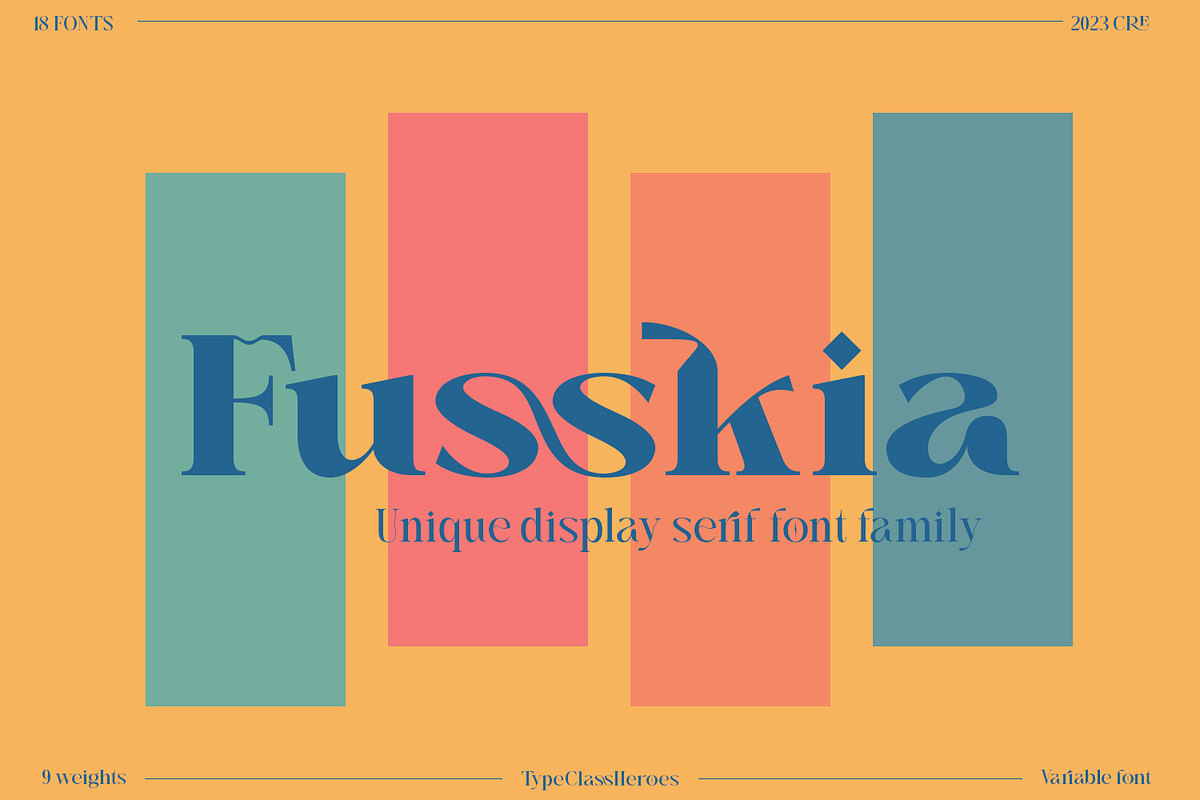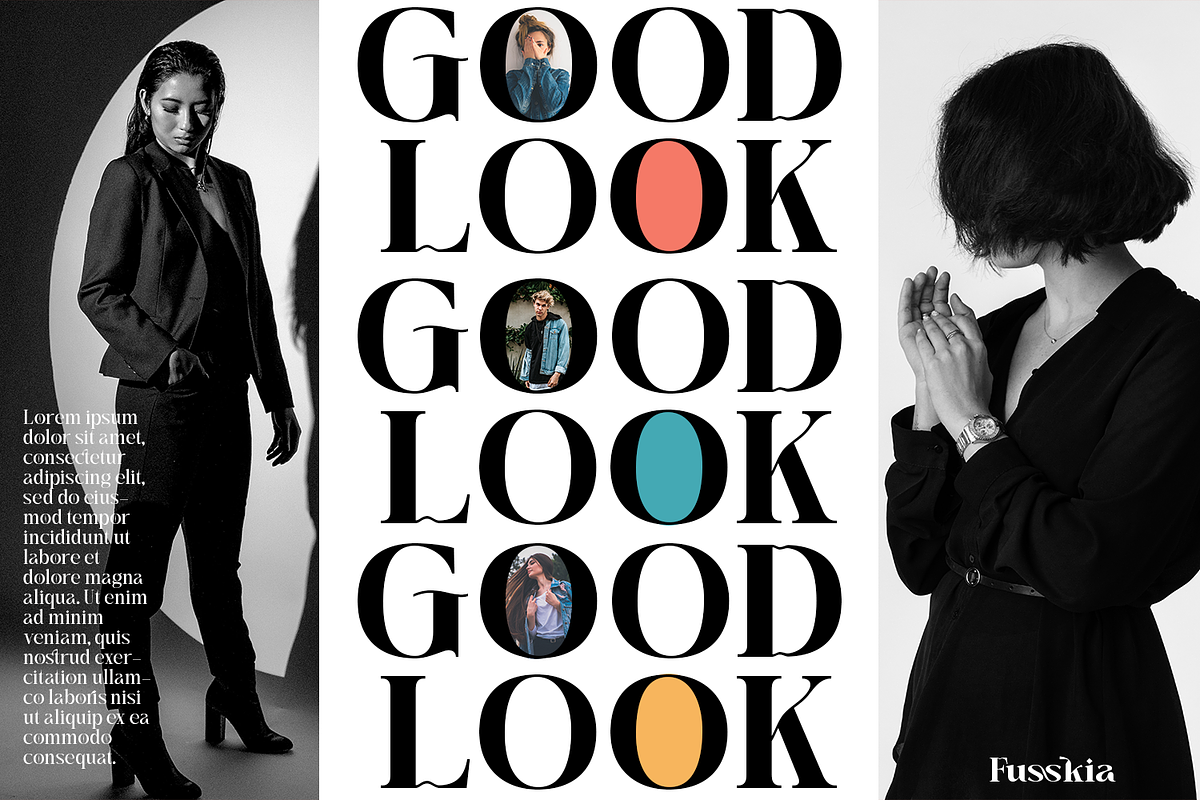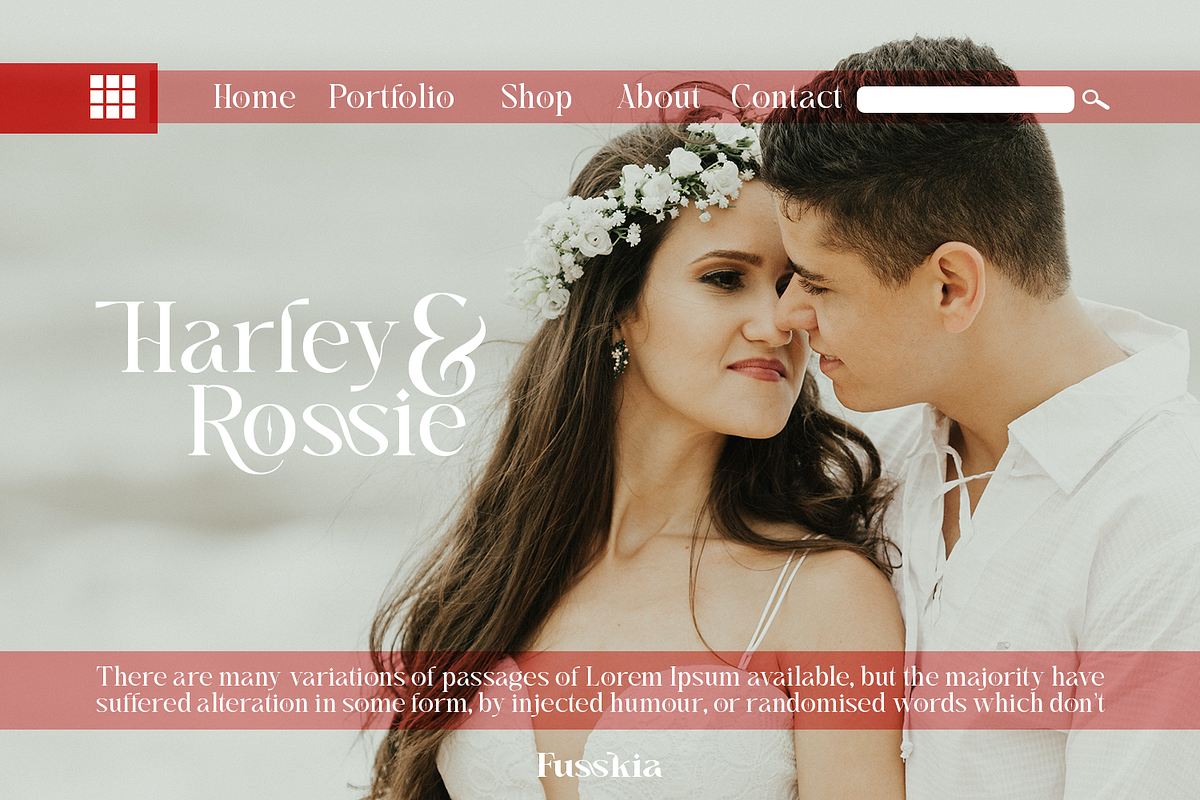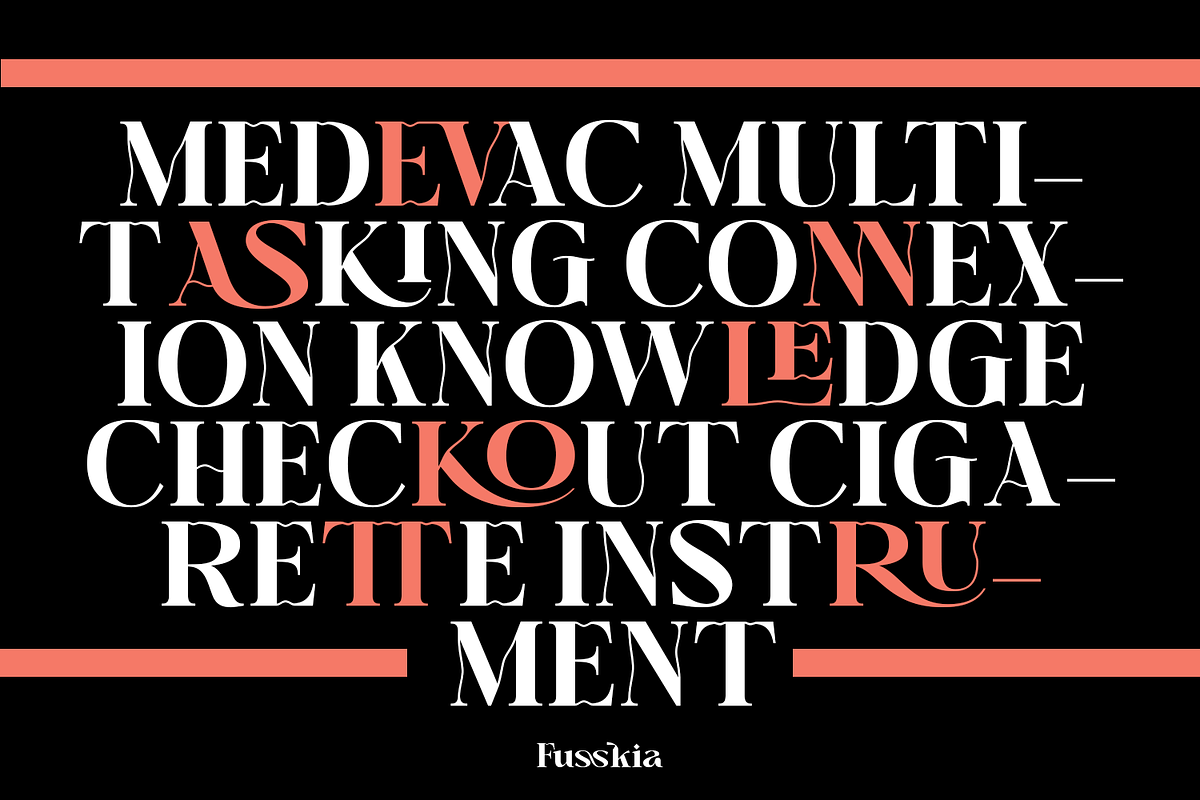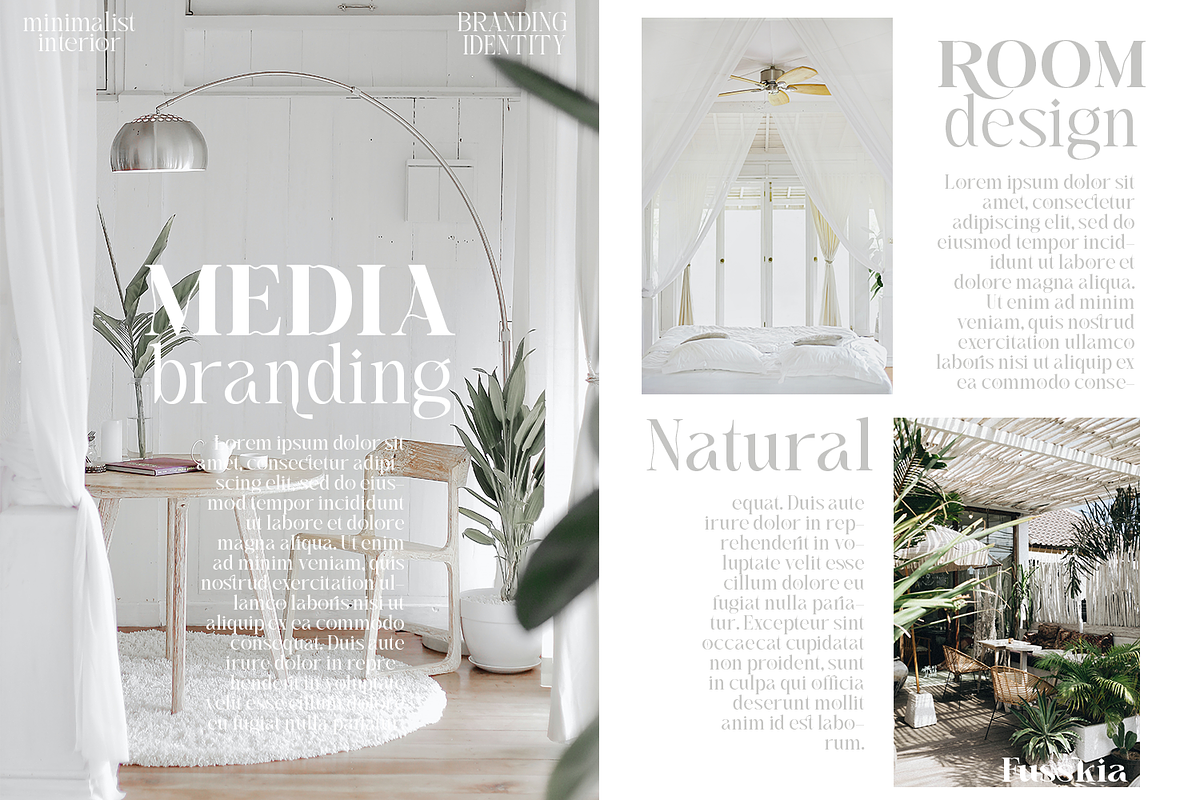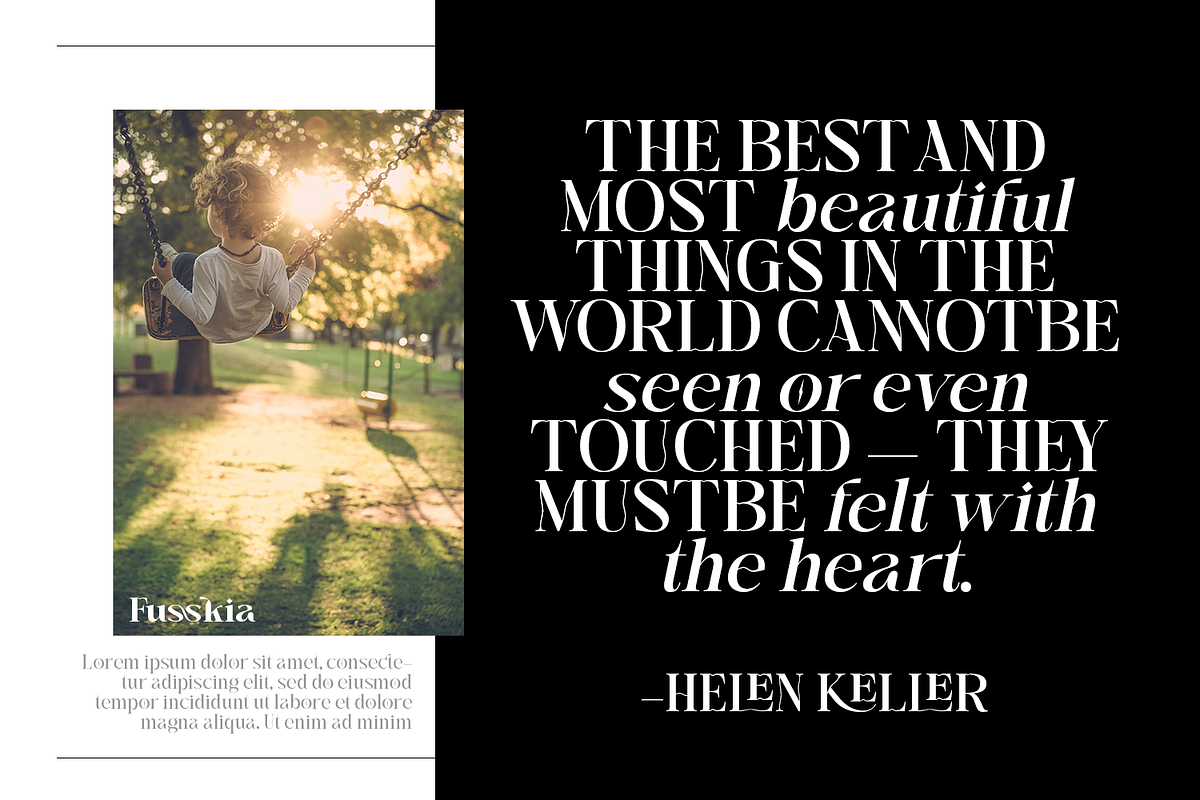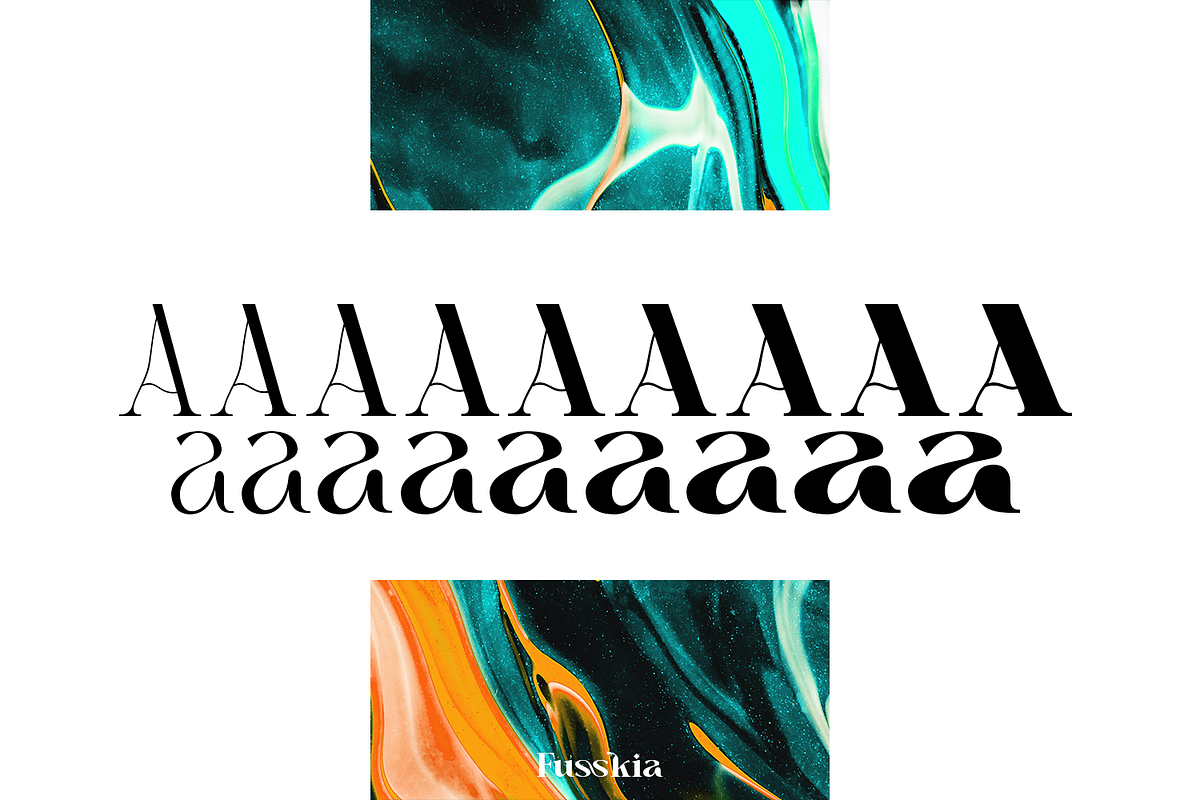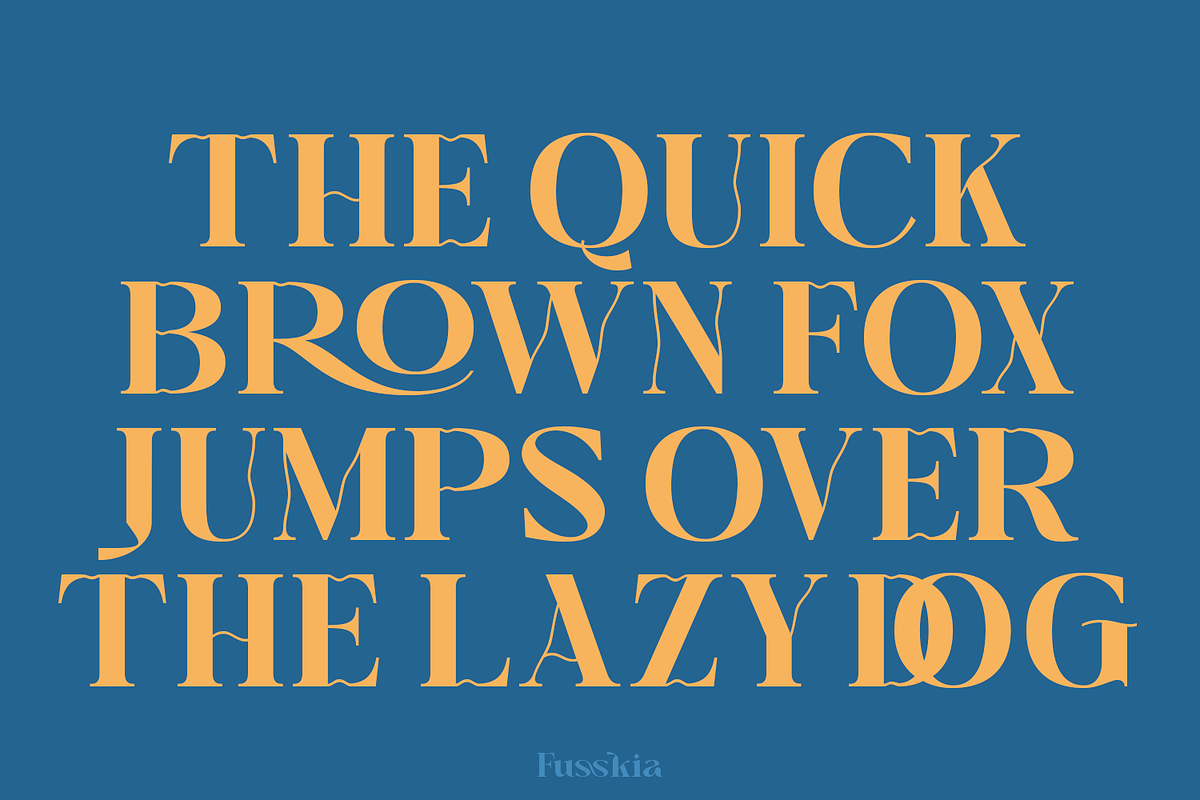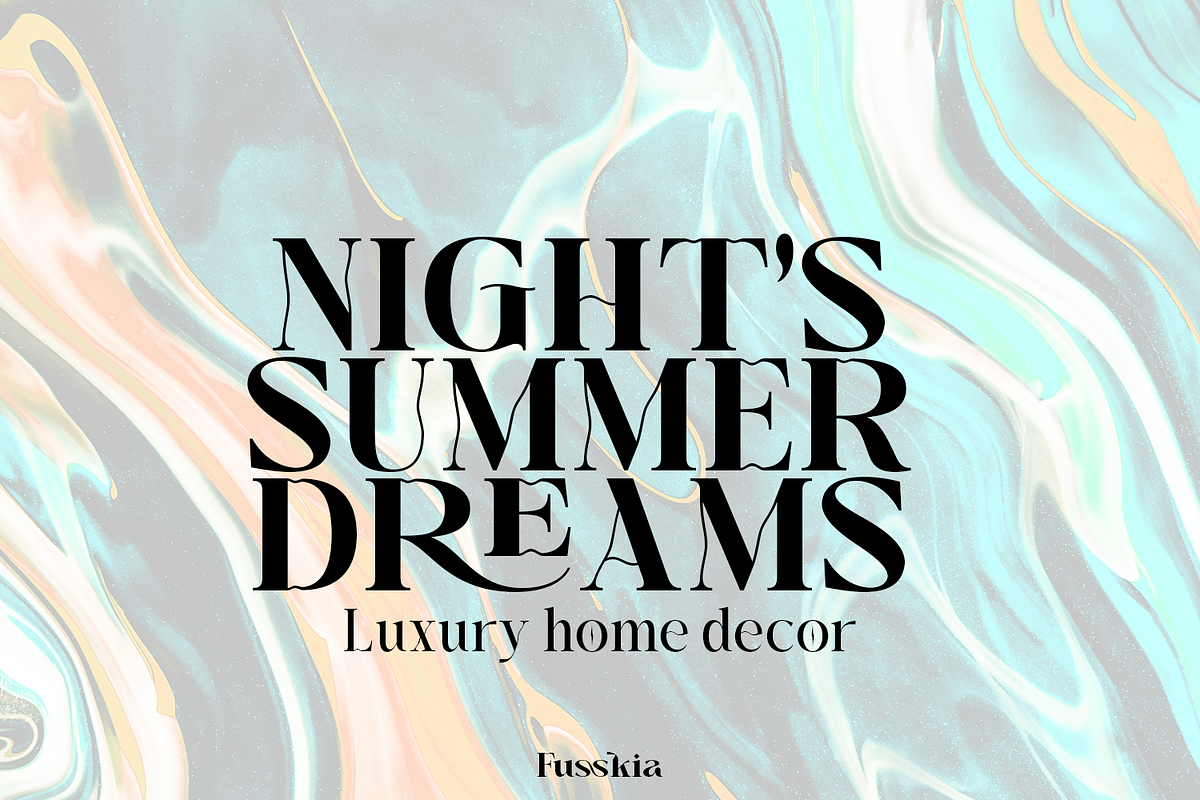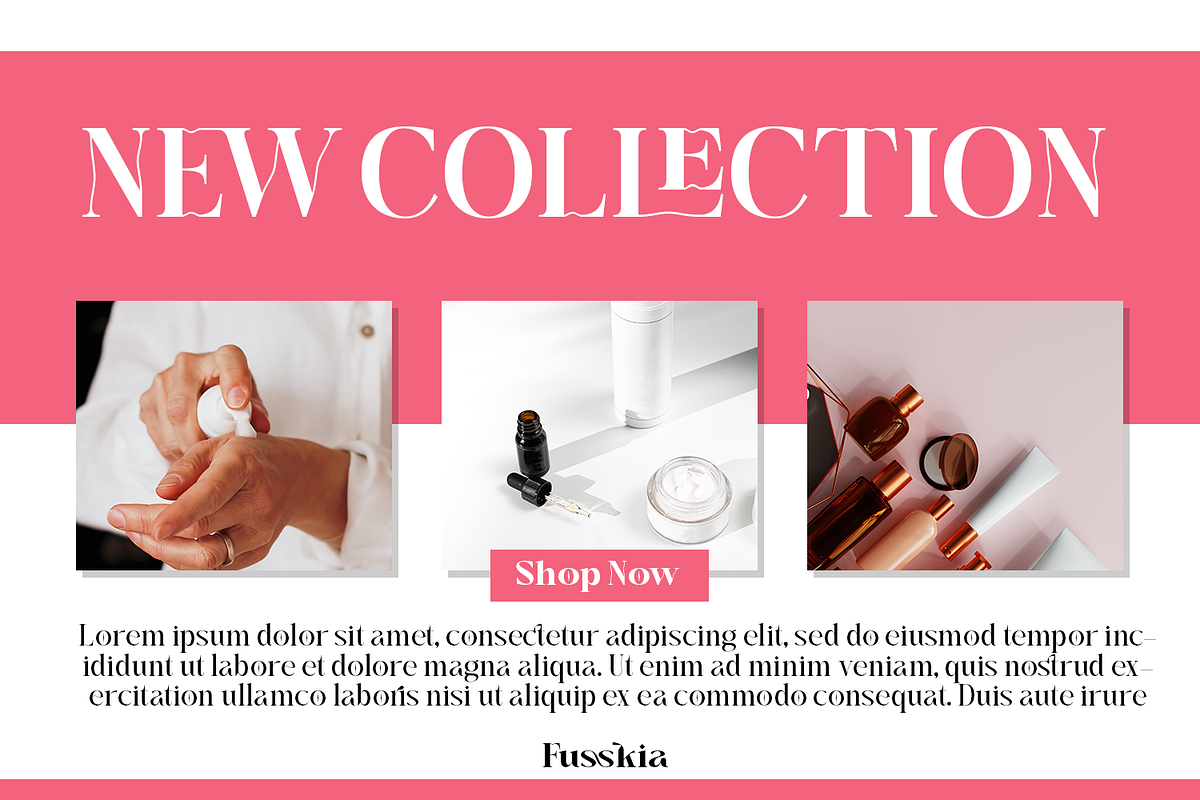
Fusskia - Display Serif
Fusskia is a variable serif display typeface with lots of alternative style and ligatures. Its unique design with various width and weight that you can explore and combine creating rhythm and texture for comfortable reading.
Fusskia support for languages such as: Danish, English, Finnish, French, German, Norwegian, Portuguese, Spanish, Swedish. In variable version, it allows multiple options when designing, adapting to different composition solutions. use this font for any branding, product packaging, invitation, quotes, label, poster, logo etc.
- International Glyphs